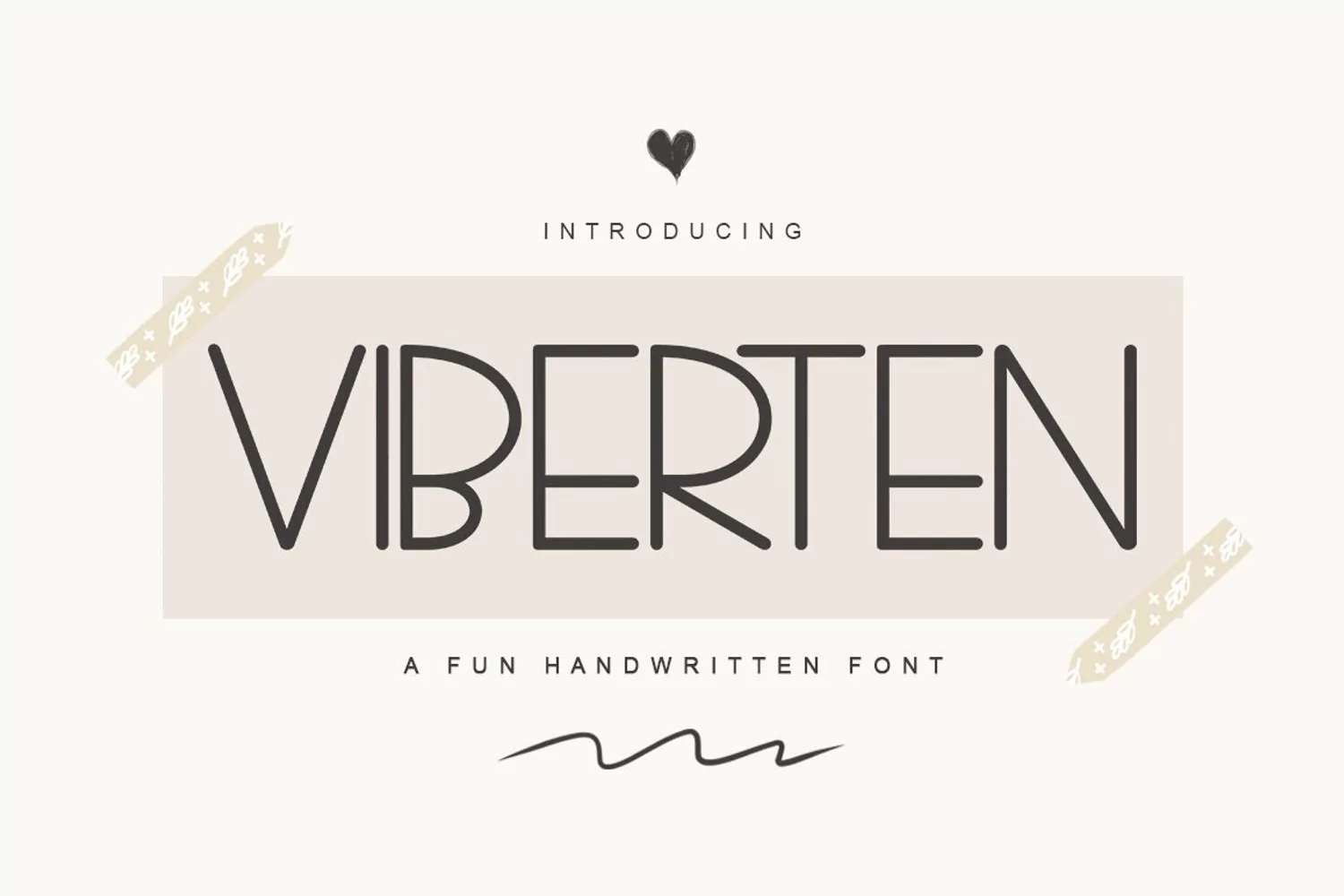
Viberten is a skinny handwritten font.
Viberten can be used for various types of design needs such as branding materials, social media, quotes, invitation, businnes cards, movie coverand more.